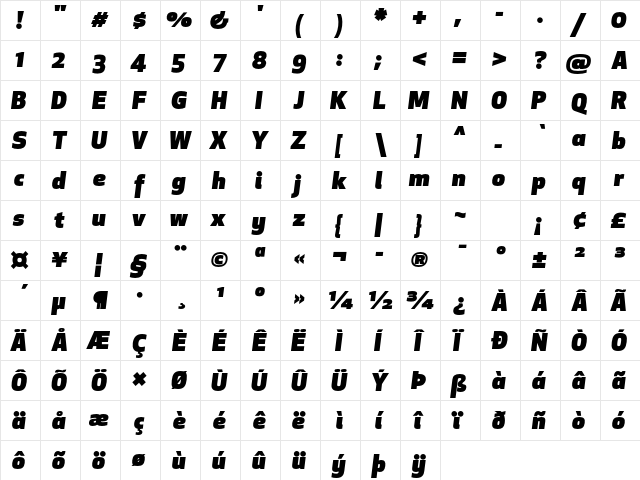
Apex New Ultra Italic
| Foundry | Village Type & Design LLC (Thirstype) |
| Designer | chester (orignally designed with Rick Valicenti) |
| Version | Version 1.001 2006, Revised version replacing Apex Sans |
Design Context for Apex New Typeface
Apex New offers clean, dependable letterforms without strong stylistic allegiance, making it a practical choice for designers who need flexibility. The slanted form adds forward momentum and visual energy.
Pro Tip: Try Apex New for annotation and caption copy alongside an upright companion — the contrast in angle creates a dynamic but ordered typographic system.